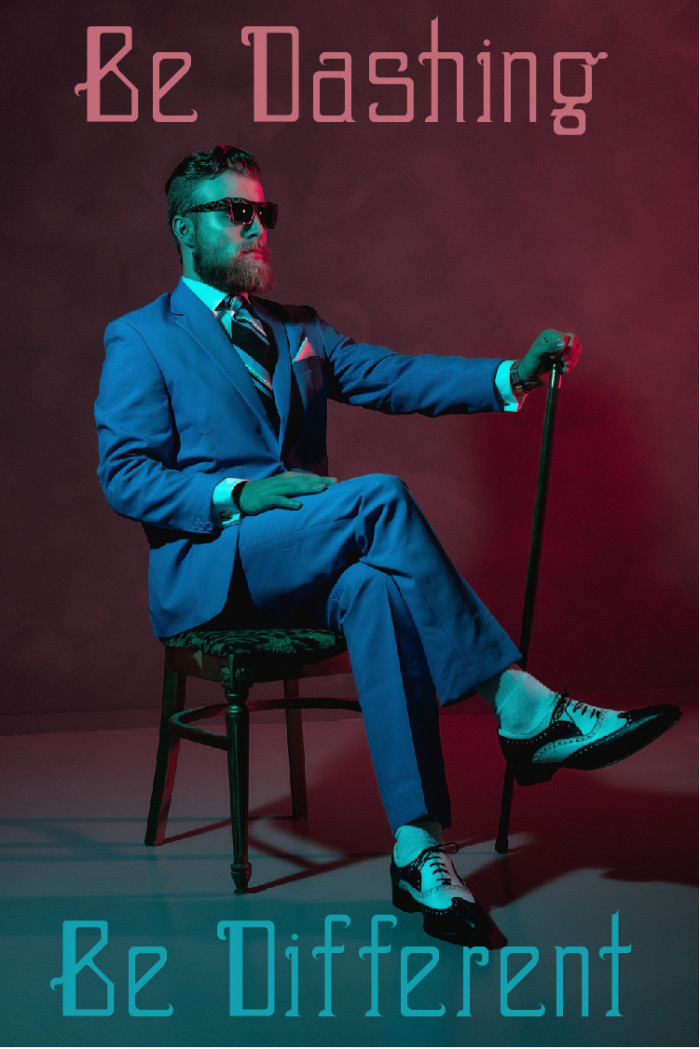
• Bow Tie
A dapper little typeface.
Who says you need to be bulky to throw your weight around? Built with a boyish frame, this slender typeface can be handy when you need to "think skinny". A few dashing details dress up the average serif and is only for those who politely dare to be different.